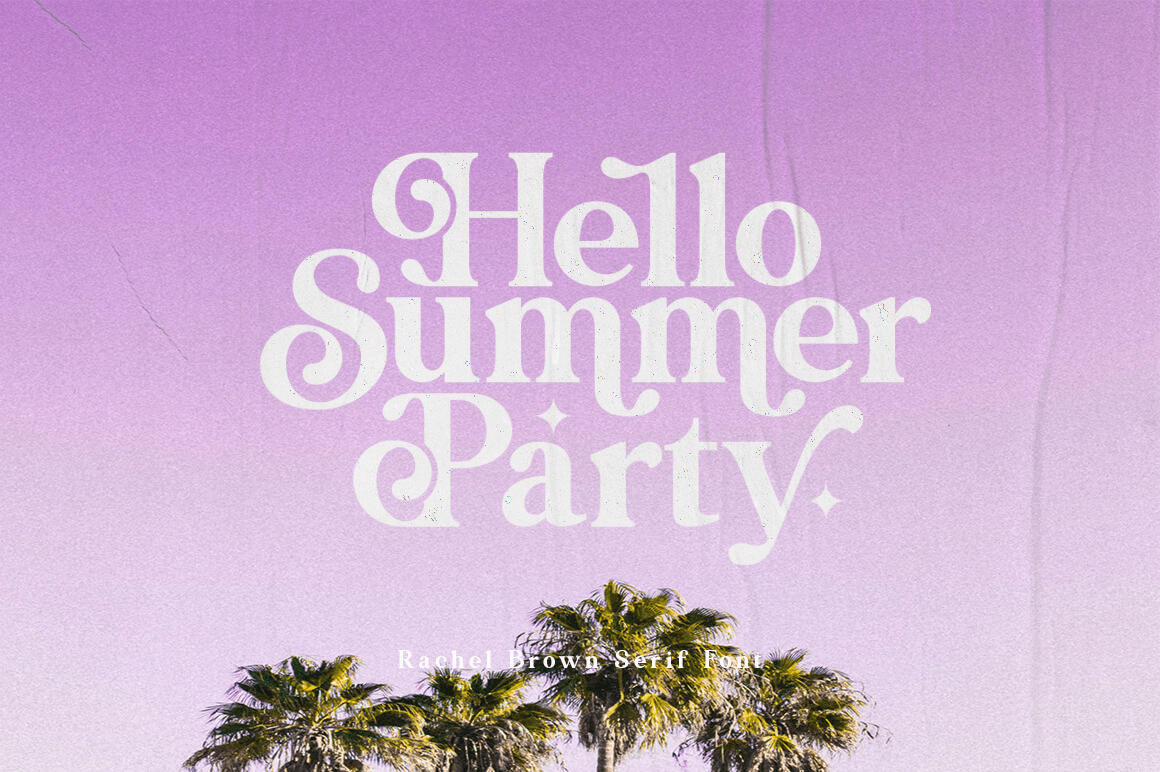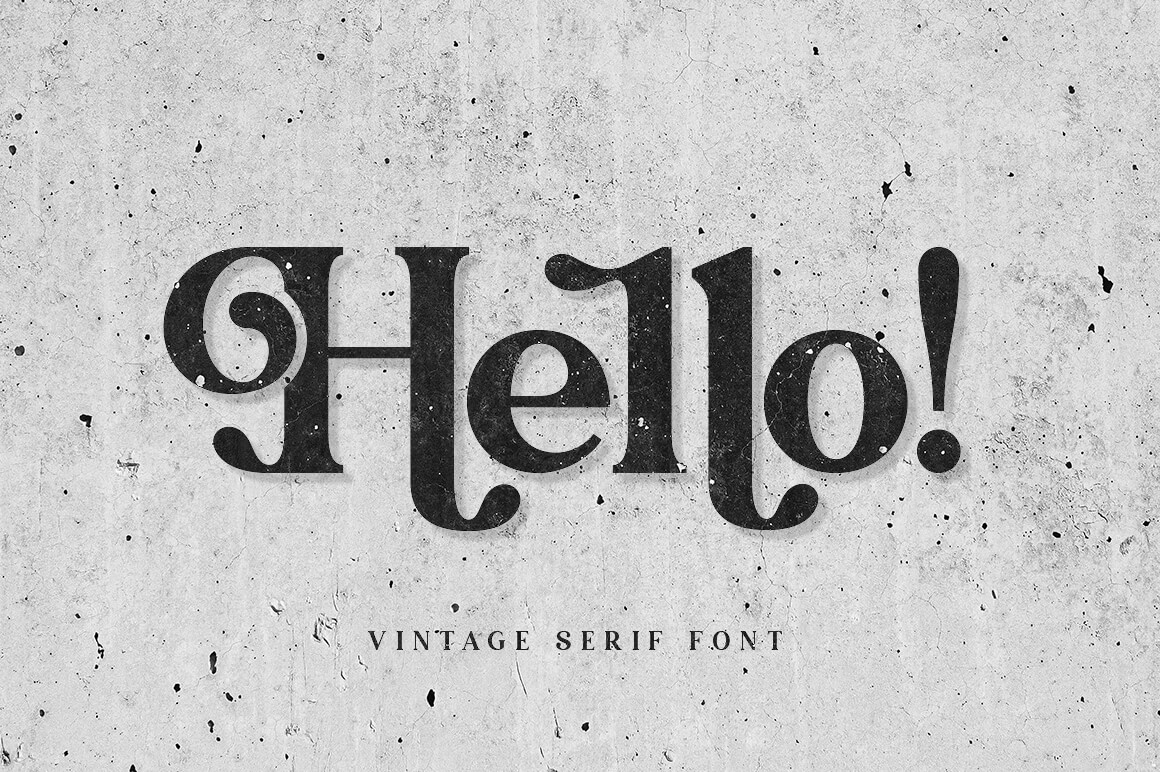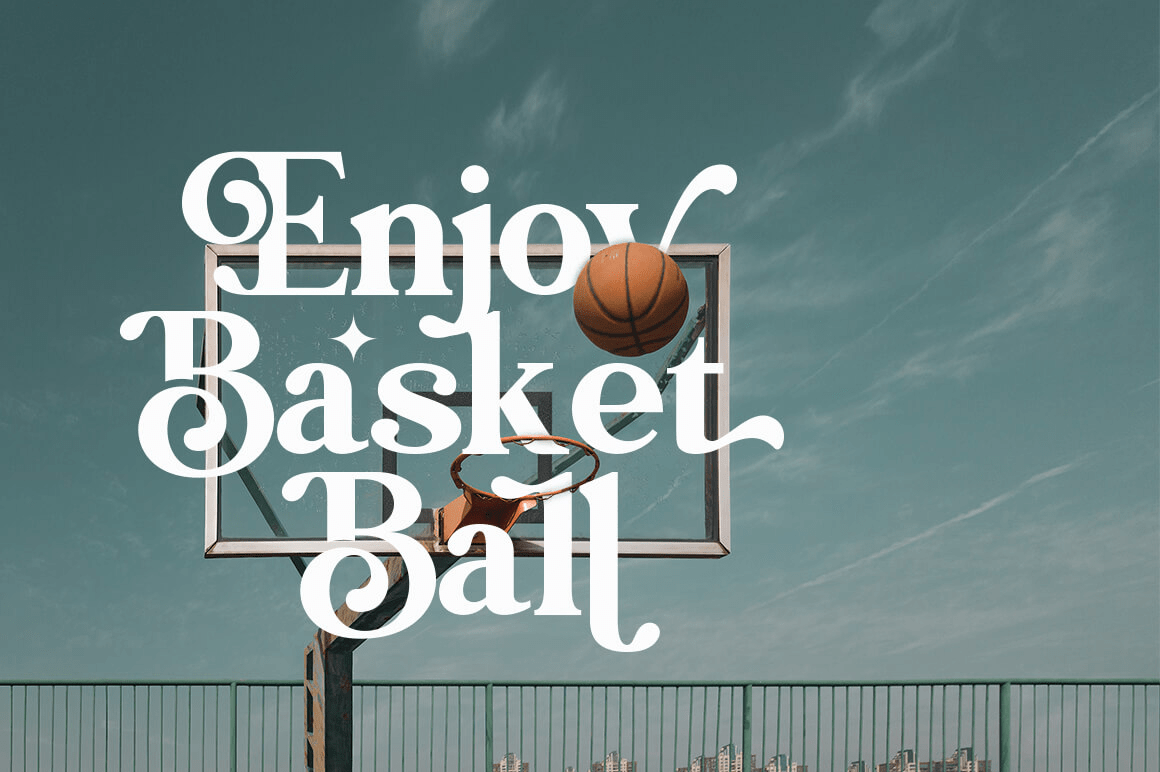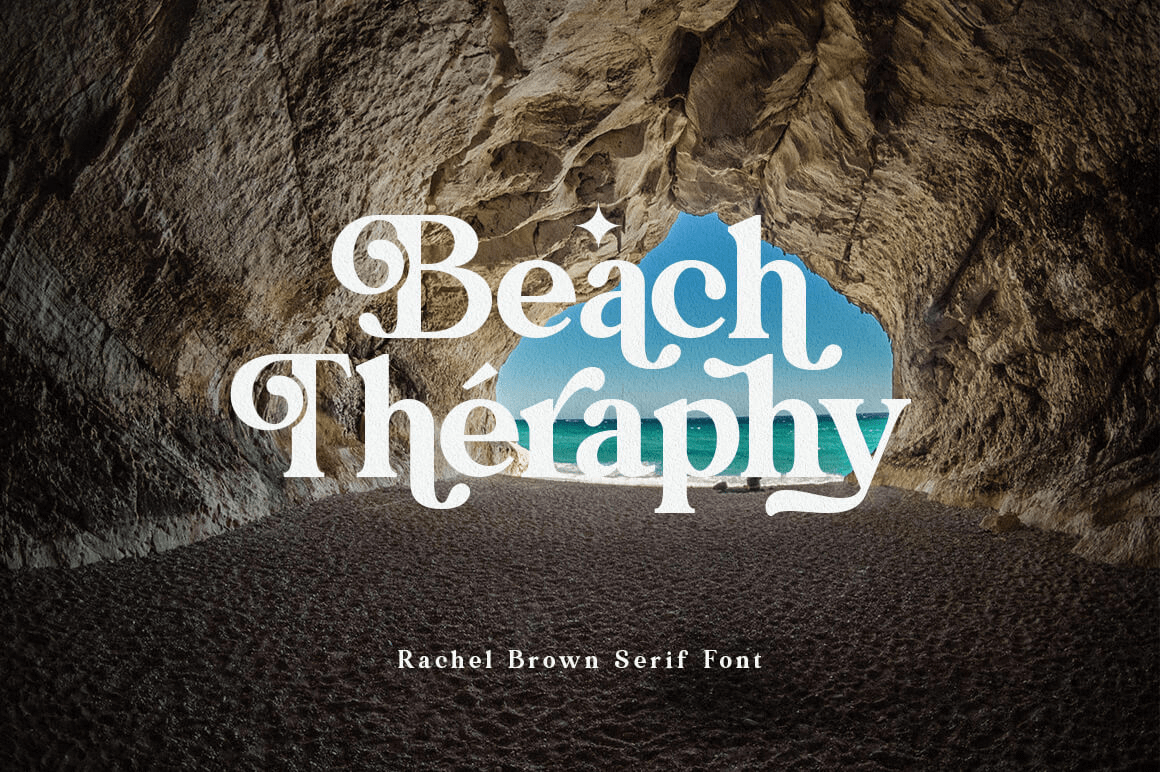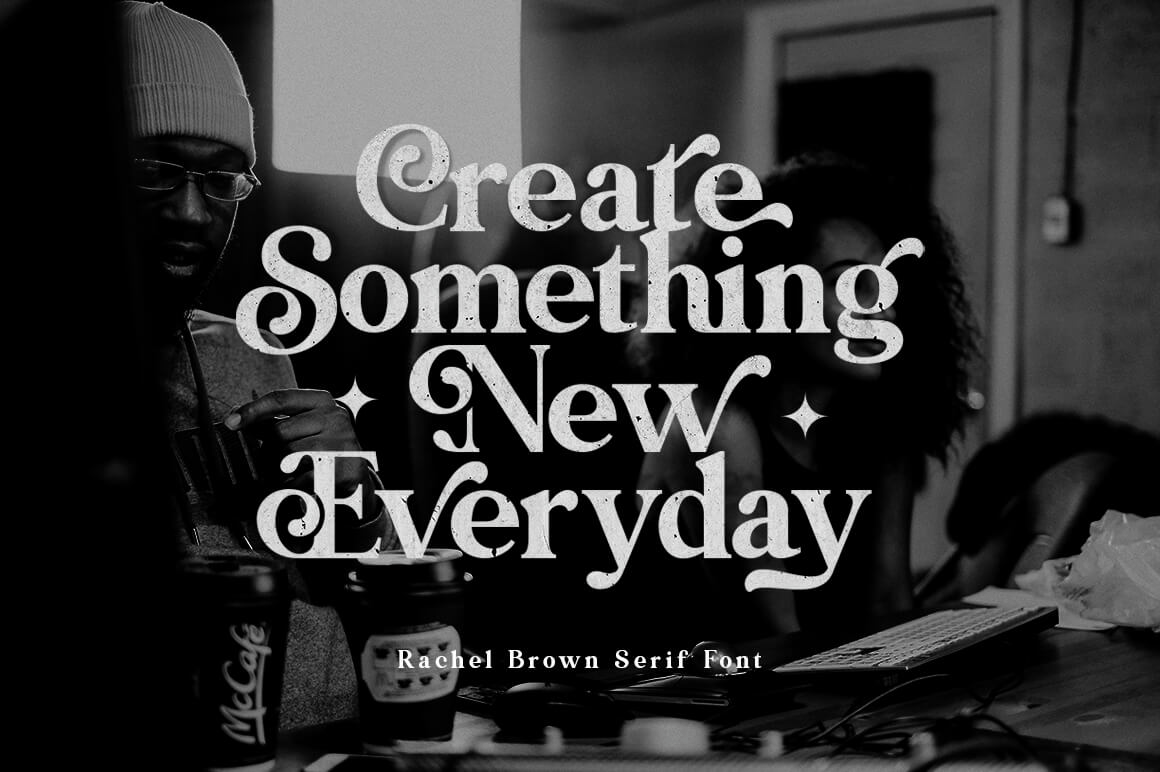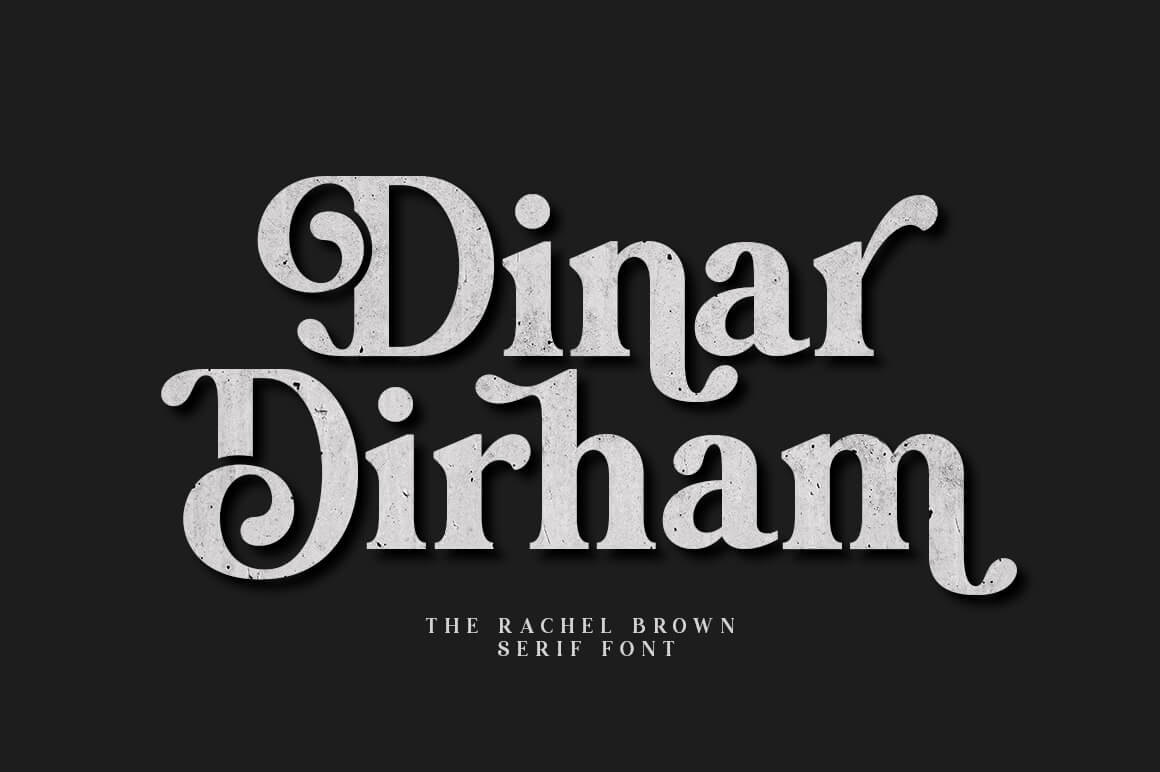
A chic & modern serif font. This font is perfect for branding, logos, social media, prints, stickers, shirts, svg files and more! Rachel Brown is unique as it can be used for a variety of design styles. It fits in wonderfully for free-spirited, boho designs…